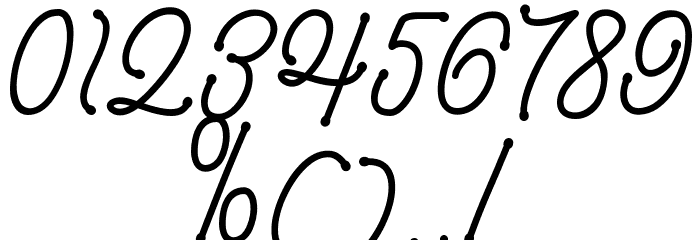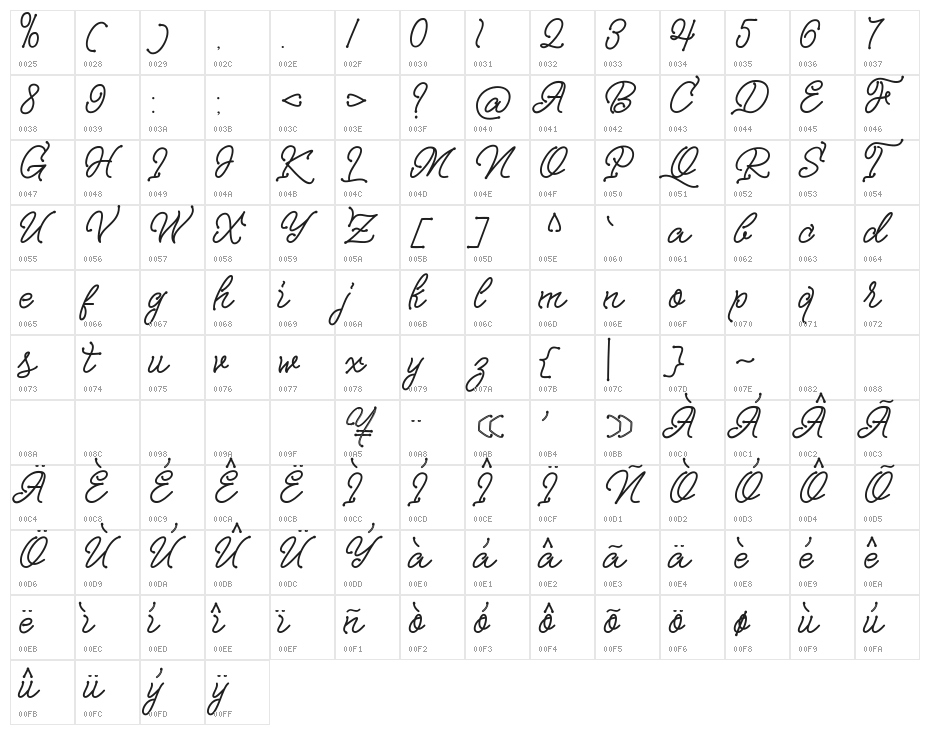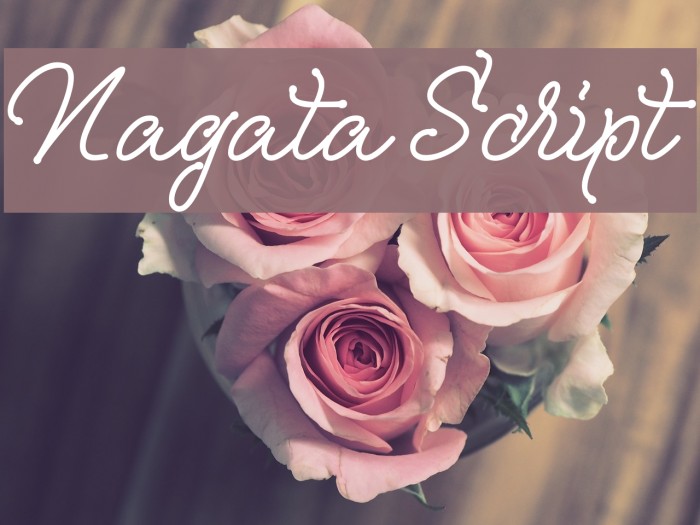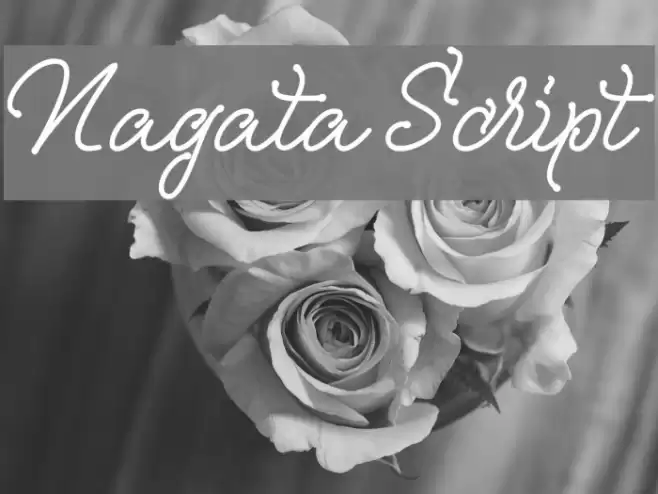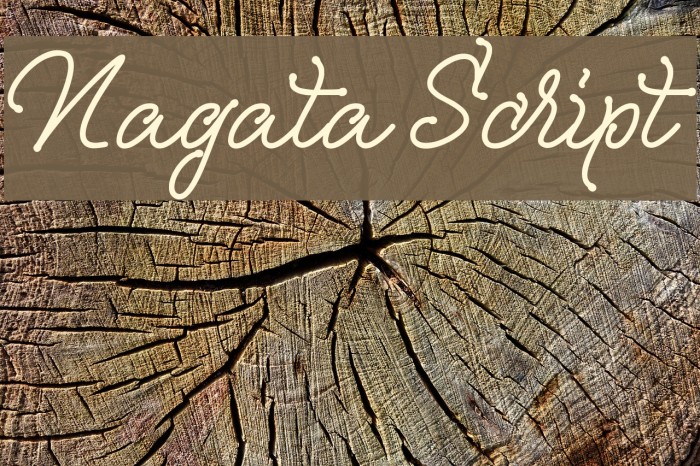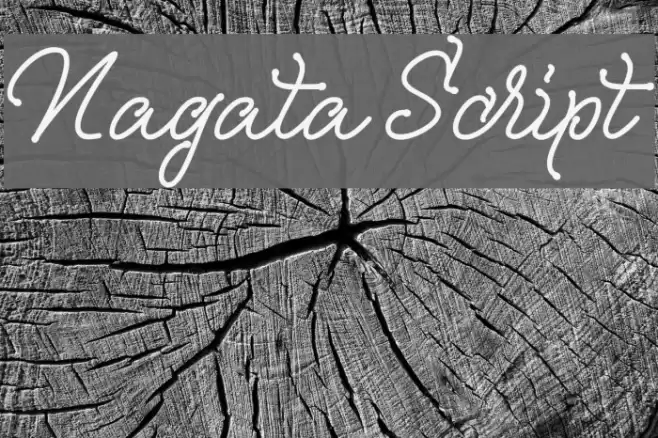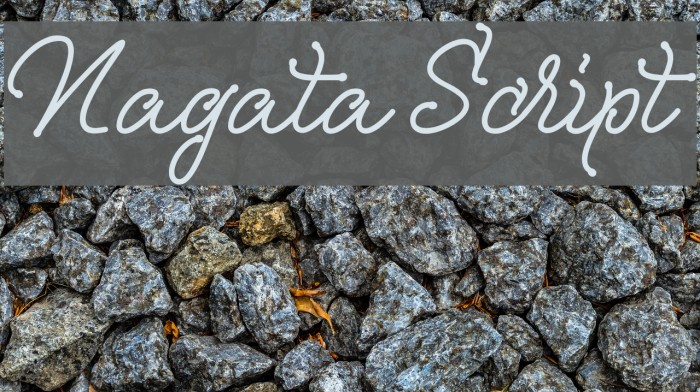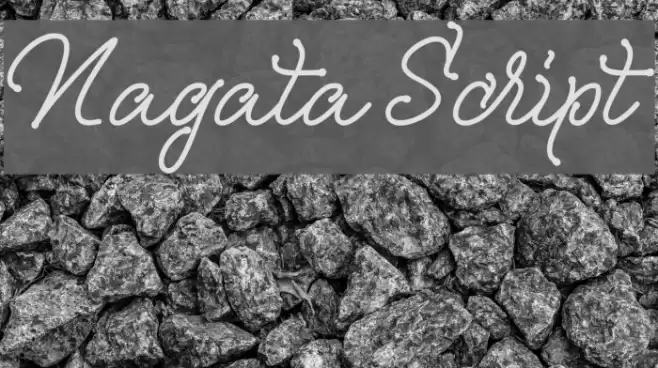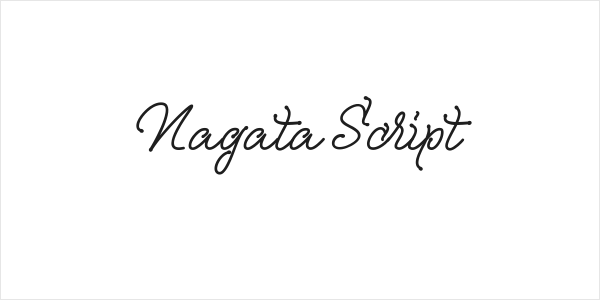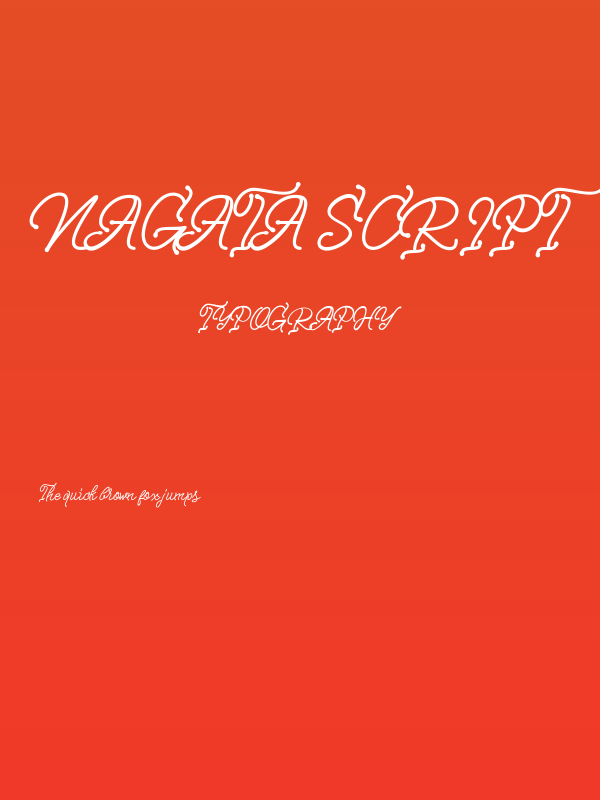
Nagata Script Font
Nagata Script Description
This elegant script font features fluid, cursive strokes that mimic the natural flow of handwriting. The uppercase letters are ornate, with sweeping curves and flourishes that add a touch of sophistication. The lowercase letters maintain a consistent slant, enhancing the script's graceful appearance. Numbers and special characters are designed to match the overall style, ensuring a cohesive look. The font's design is both decorative and legible, making it suitable for a variety of creative applications.
| Proposed Projects | Ideal for wedding invitations, greeting cards, branding, and elegant signage. |